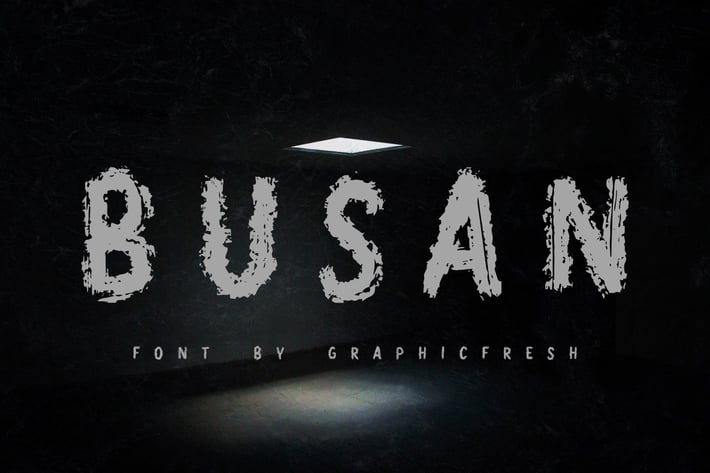
Busan - The Horror Brush Font
Introducing Busan - The Horror Brush Font. It comes with brush texture style which is perfect to make any design stand out! This font is perfect for branding, wedding invites, magazines, mugs, business cards, quotes, posters, and more.